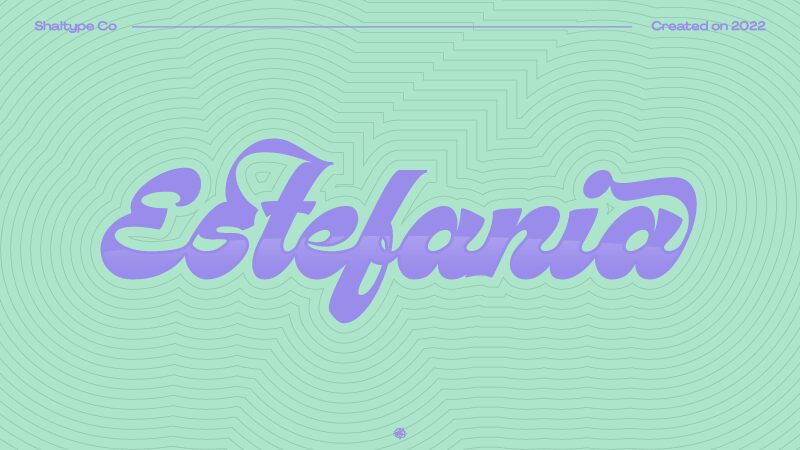
STCO Estefania, crafted by Faishal Mahdy of Shaltype Co, is a striking font that exudes elegance and creativity. Its smooth brush strokes create a beautifully fluid appearance, making it visually captivating. The bold nature of the font commands attention, making it perfect for impactful headlines or promotional materials.
The sweeping curves and dynamic flow give STCO Estefania a vibrant character, allowing it to stand out in both digital and print contexts. This font finds its place effortlessly in branding, social media graphics, and stylish invitations-anywhere that requires a touch of sophistication balanced with artistic flair. Its unique style ensures it captures the essence of modern design while remaining approachable.